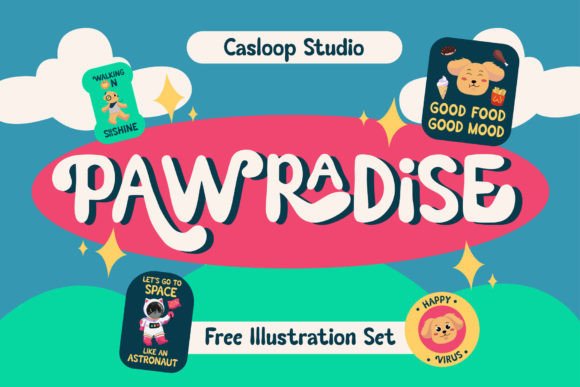
Introducing Pawradise Font, a delightful typeface that instantly brings a playful and enjoyable vibe to any design project. Created by Casloop, this font family is specifically designed with rounded and bubbly shapes, adding a touch of cheerfulness and excitement to each character.
But Pawradise is not just limited to one specific field. Its versatility allows you to apply this font in numerous ways. Imagine using it on product labels, instantly creating a unique and cheerful impression that captures the attention of your customers. Or perhaps design logos with a soft and inviting appearance, making your brand stand out from the crowd.
But it doesn't stop there. Pawradise is also perfect for crafting stunning product packaging that captivates customers with its visual delight. Picture your products wrapped in a design that radiates happiness and elegance, leaving a lasting impression on anyone who sees it.
And let's not forget about fashion. Pawradise is an excellent choice for clothing designs, whether it be t-shirts or tote bags. It adds a fun and vibrant touch to everyday fashion, making a bold statement that sets you apart from the rest.
The beauty of Pawradise lies in its ability to transcend boundaries. Its smooth and circular shapes bring an element of elegance to any design, making it suitable for various industries and styles. Whether you're creating a whimsical children's book, a modern website, or an eye-catching advertisement, Pawradise will elevate your design and leave a lasting impact.
In a world filled with endless variations and expressions, Pawradise is the ideal choice for those seeking a visually striking and memorable look. Let your creativity soar and explore the limitless possibilities with this captivating font.